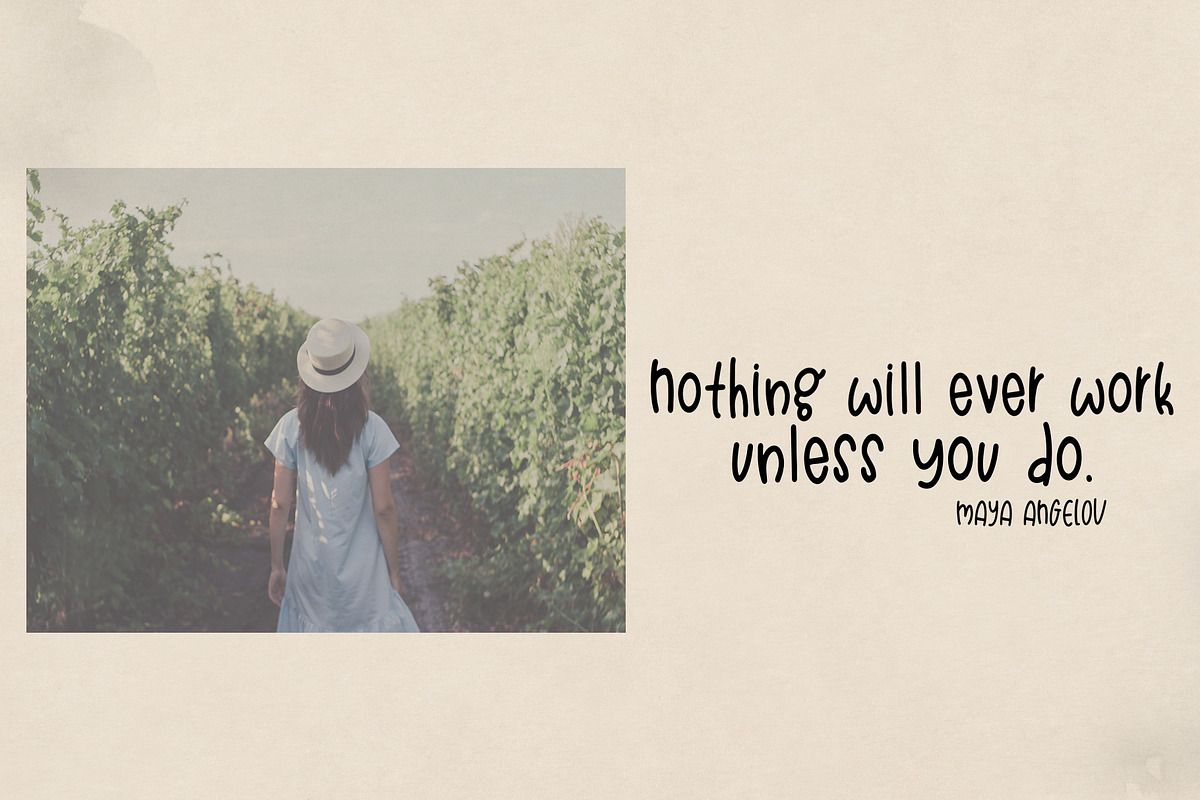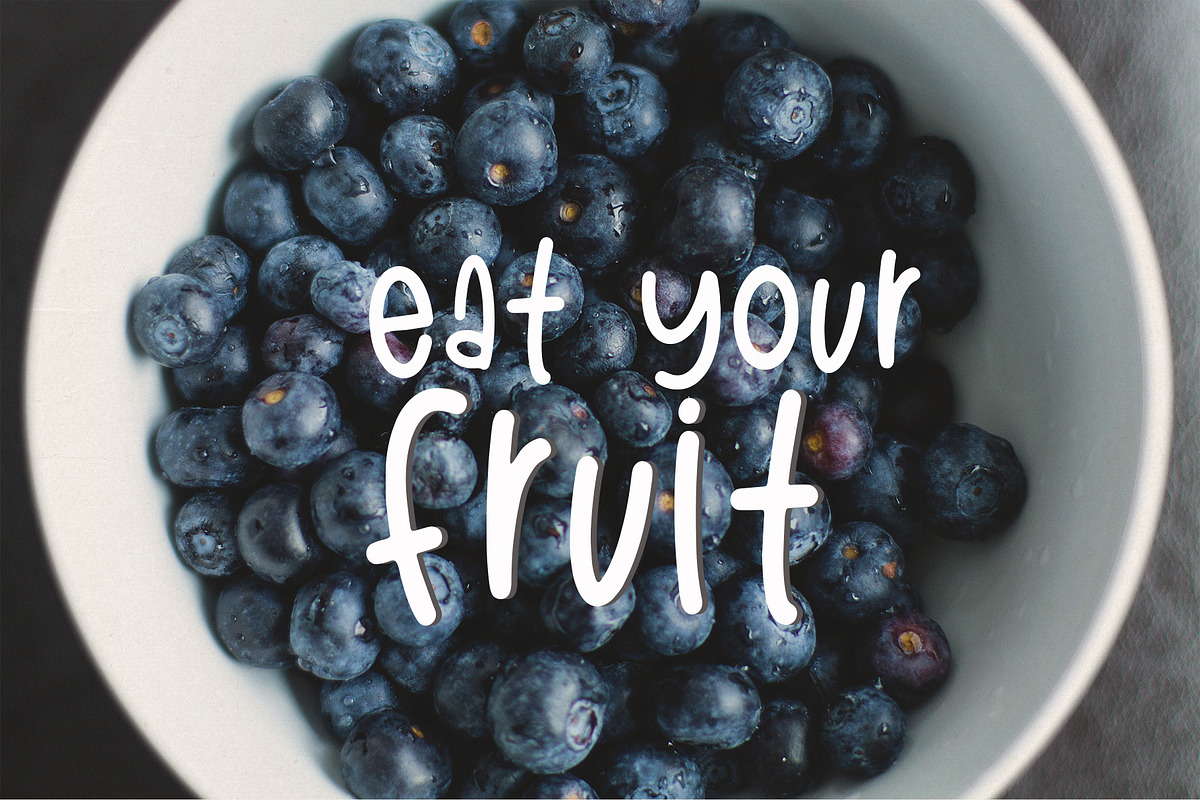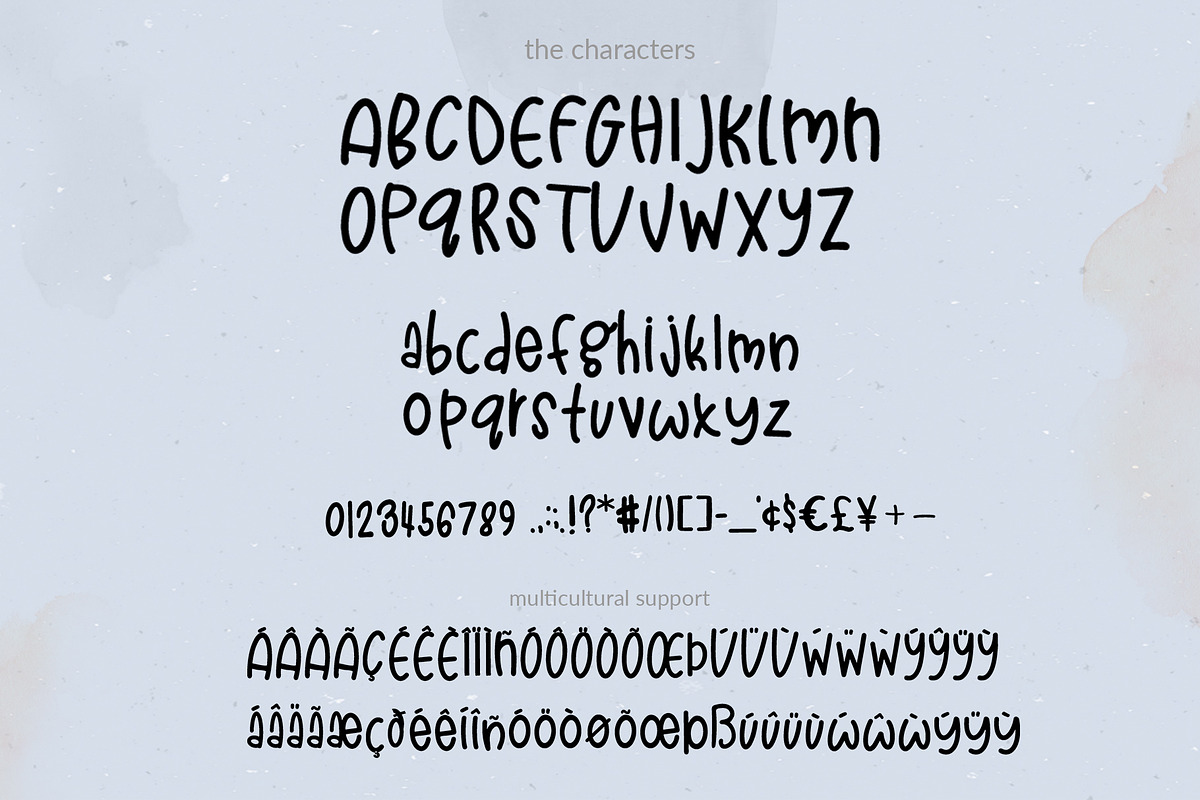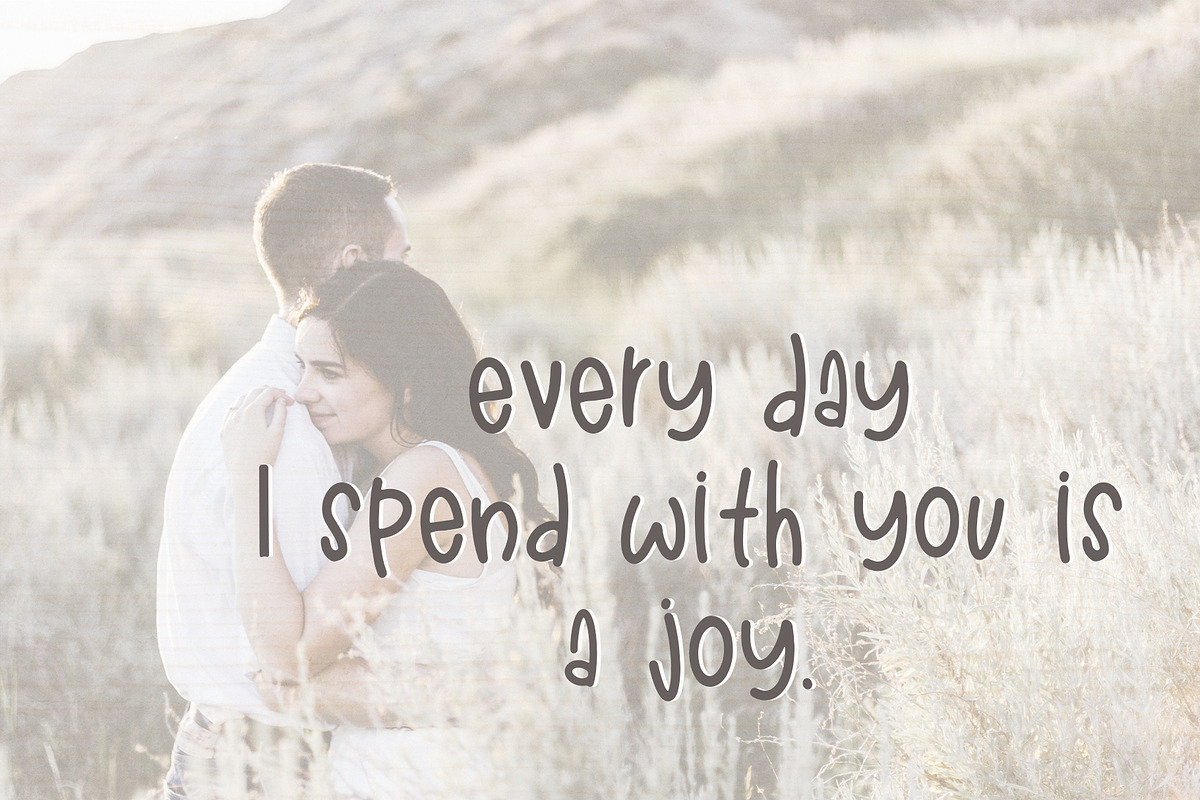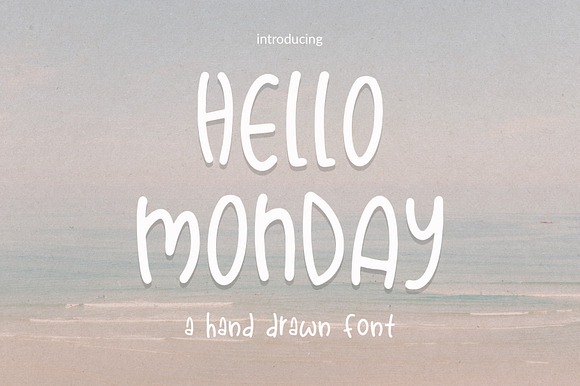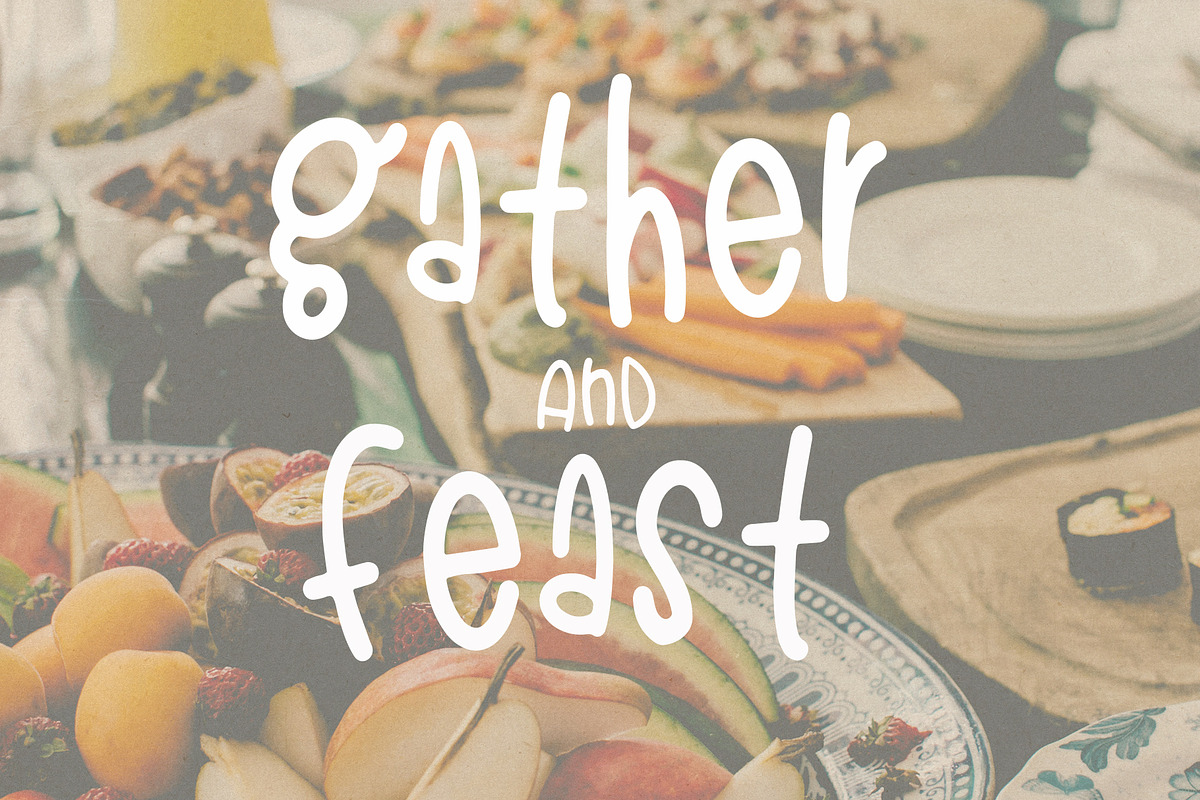
Hello Monday Hand Drawn Font
Hello Monday is a fun, quirky hand-drawn font. It is perfect for blogs, branding, headers, and so much more!
Accent characters are included
Hello Monday Hand Drawn Font by Sweet Fig fits naturally into Branding, posters, packaging, typography.